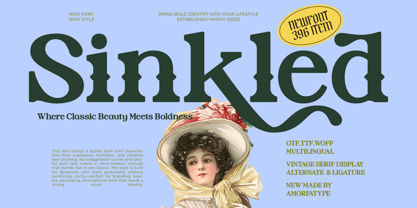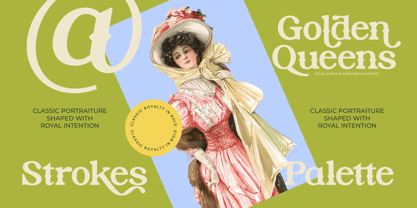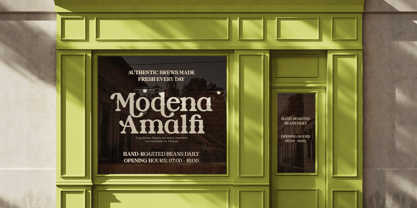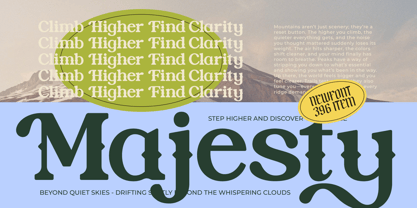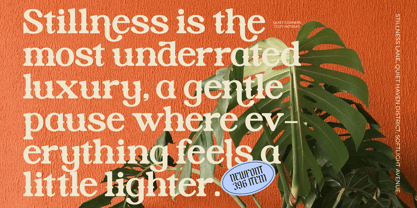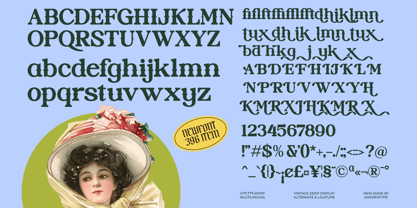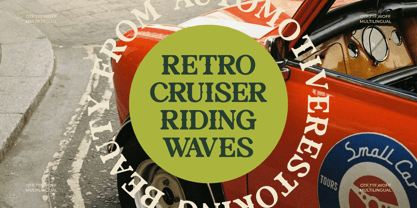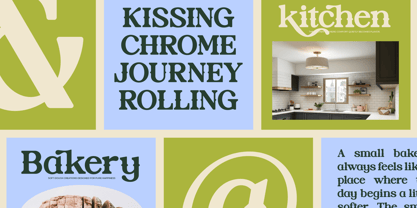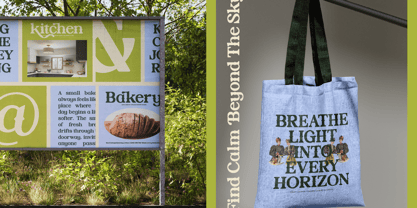
Sinkled
The Sinkled Font Family was designed by Shiddiq Roihan and published by Amorfa Type. Sinkled contains 2 styles and family package options. More about this family
Sinkled is a vintage serif display typeface that blends classic character with a refined modern touch. Its strong letterforms, sharp serif details, and retro-inspired curves create a bold visual personality while maintaining solid readability. Designed for creators who want a typeface with nostalgic charm and contemporary confidence, Sinkled brings a distinctive and memorable presence to any layout. With Sinkled offers wide creative flexibility. Each character is crafted to add expression and variation, making it ideal for impactful titles, expressive branding, and retro-themed visuals.